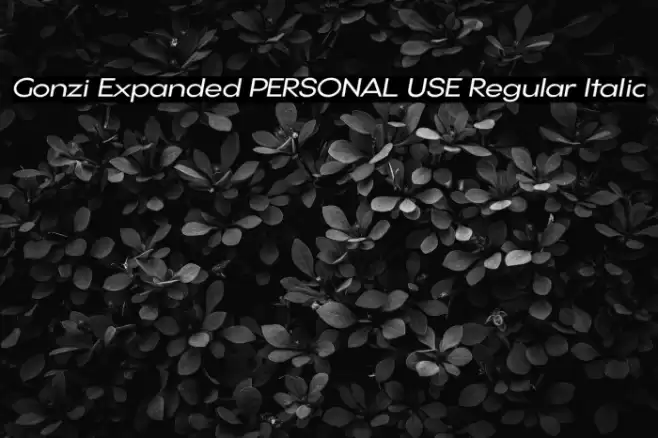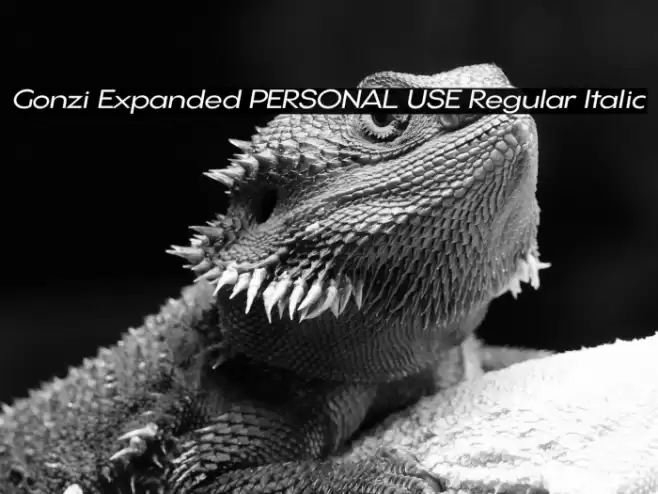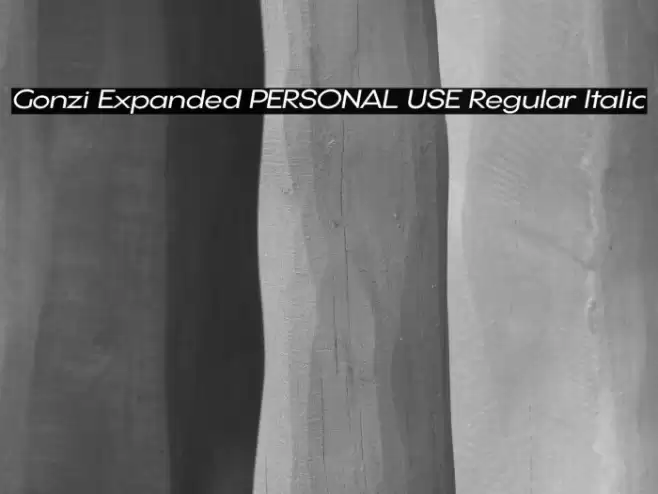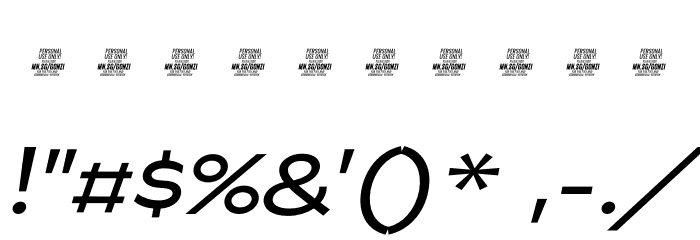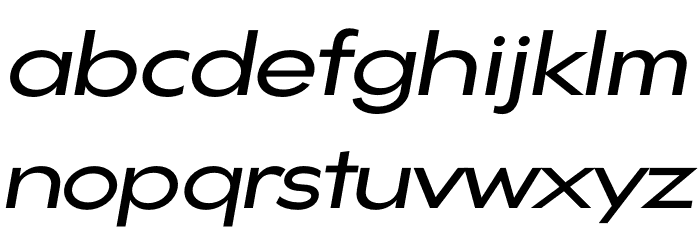
Gonzi Expanded PERSONAL USE Regular Italic Font
Gonzi Expanded PERSONAL USE Regular Italic Description
This font features a sleek, modern design with an expanded width and italicized style. The characters are clean and geometric, providing a contemporary look that is both professional and stylish. The uppercase and lowercase letters maintain a consistent slant, enhancing the italic effect. Numbers and special characters are designed with the same attention to detail, ensuring uniformity across all glyphs. The font's expanded nature gives it a unique presence, making it suitable for various design applications where a modern and dynamic appearance is desired.
A modern, expanded italic font with a sleek, geometric design from Uncategorized fonts.
- Proposed Projects: Ideal for branding, advertising, and editorial design projects where a modern and dynamic appearance is needed.
- Use Case: Headlines, Logos, Branding